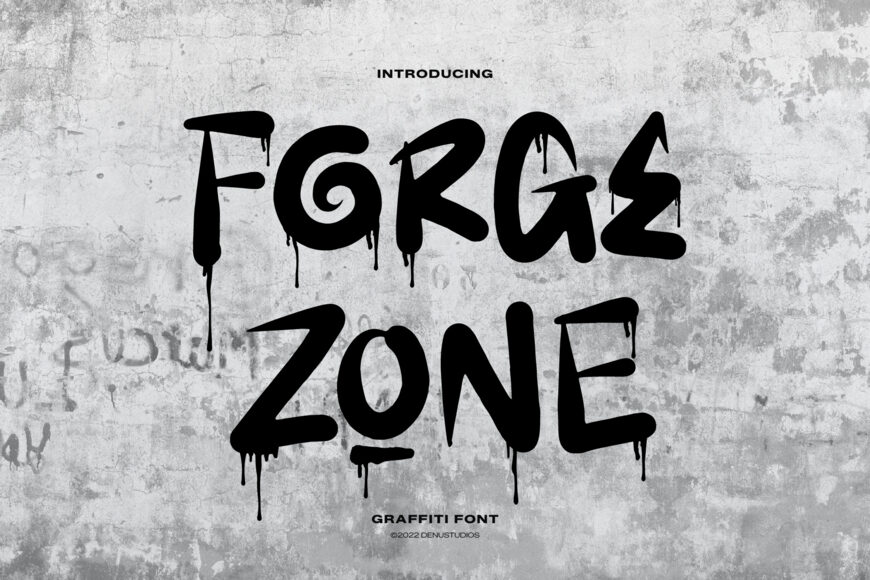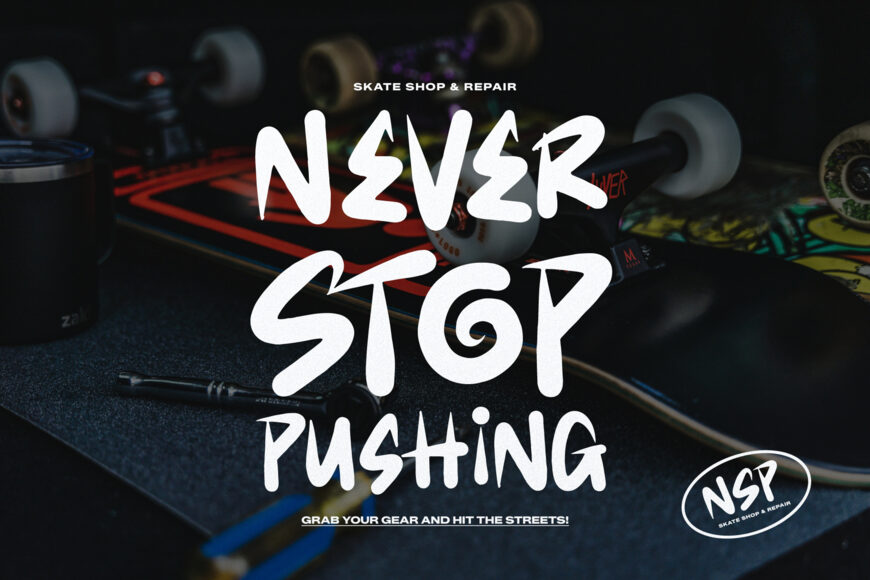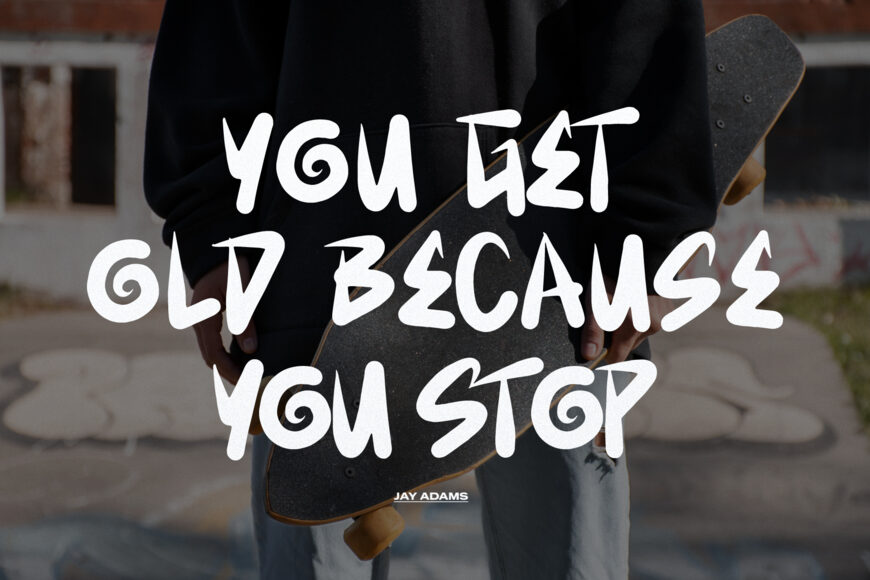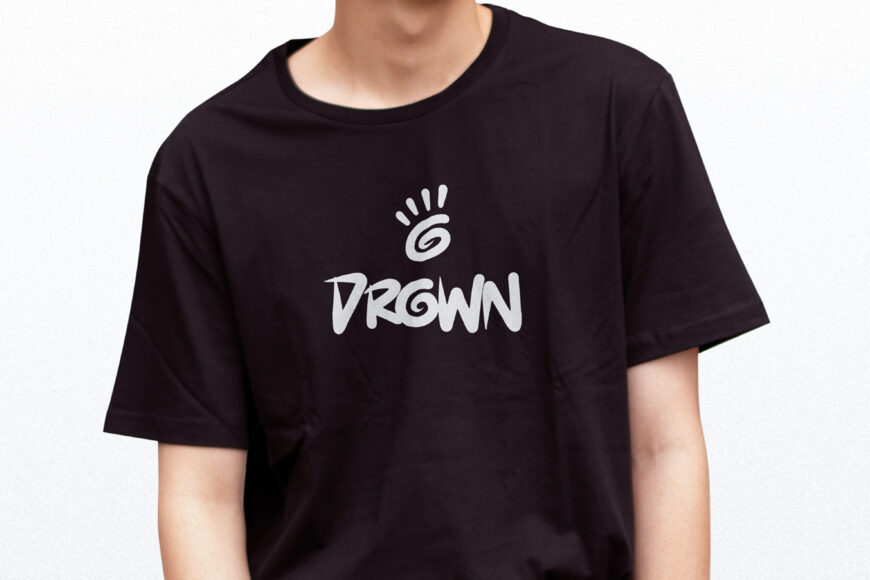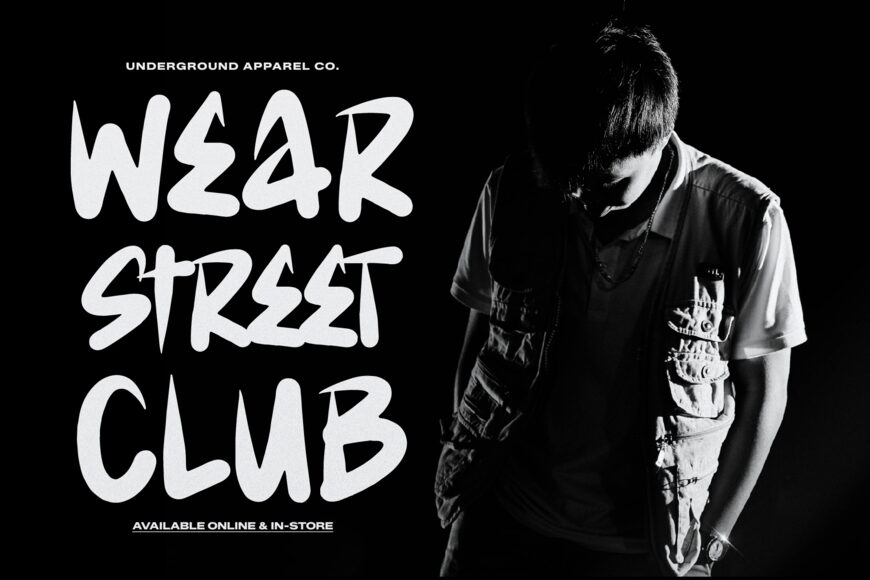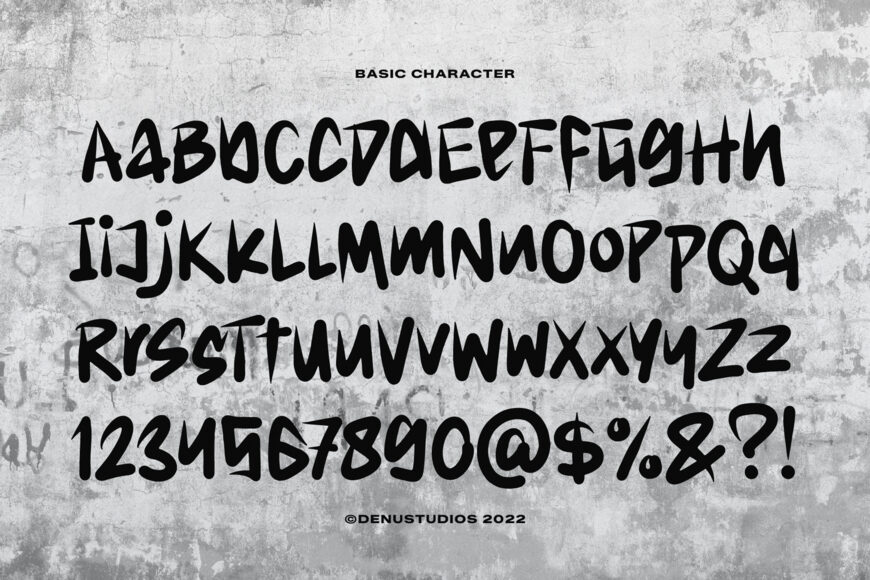
Forge Zone Font
Inject raw street attitude, rebellious urban energy, and spray-paint realism into your graphics with Forge Zone, a graffiti display font! Crafted with thick marker strokes, expressive tag curves, and authentic paint drips hanging from every letterform, this high-impact typeface commands the wall and the screen alike.
Whether you’re creating urban streetwear apparel, hip-hop album covers, skateboarding graphics, edgy sticker packs, event posters, or vinyl craft SVG projects, Forge Zone gives your typography an unyielding, street-certified edge.